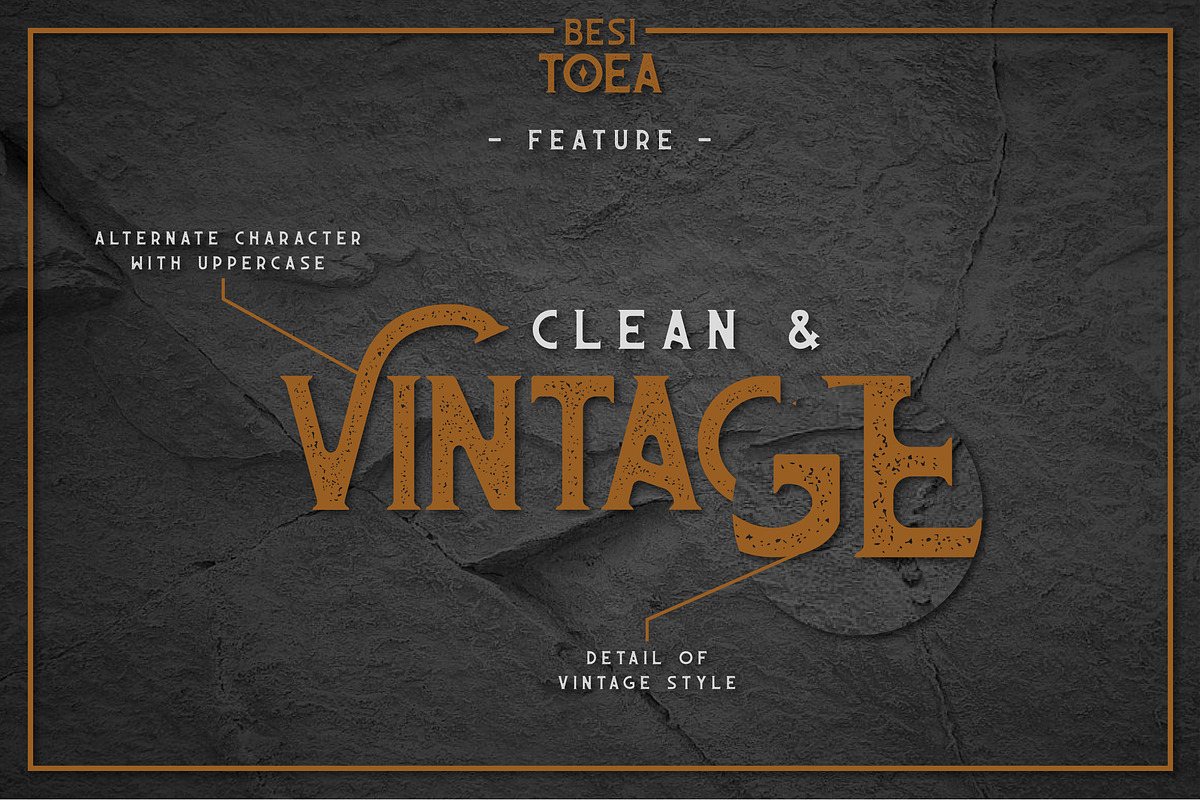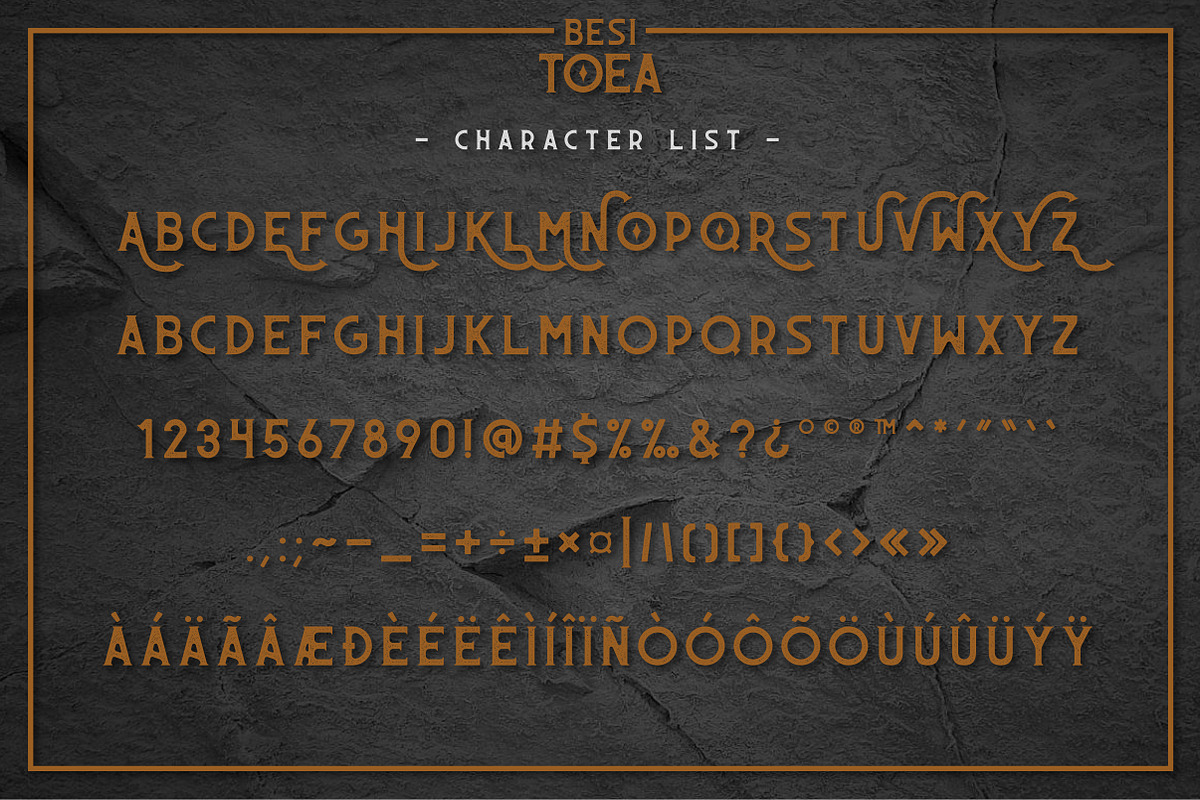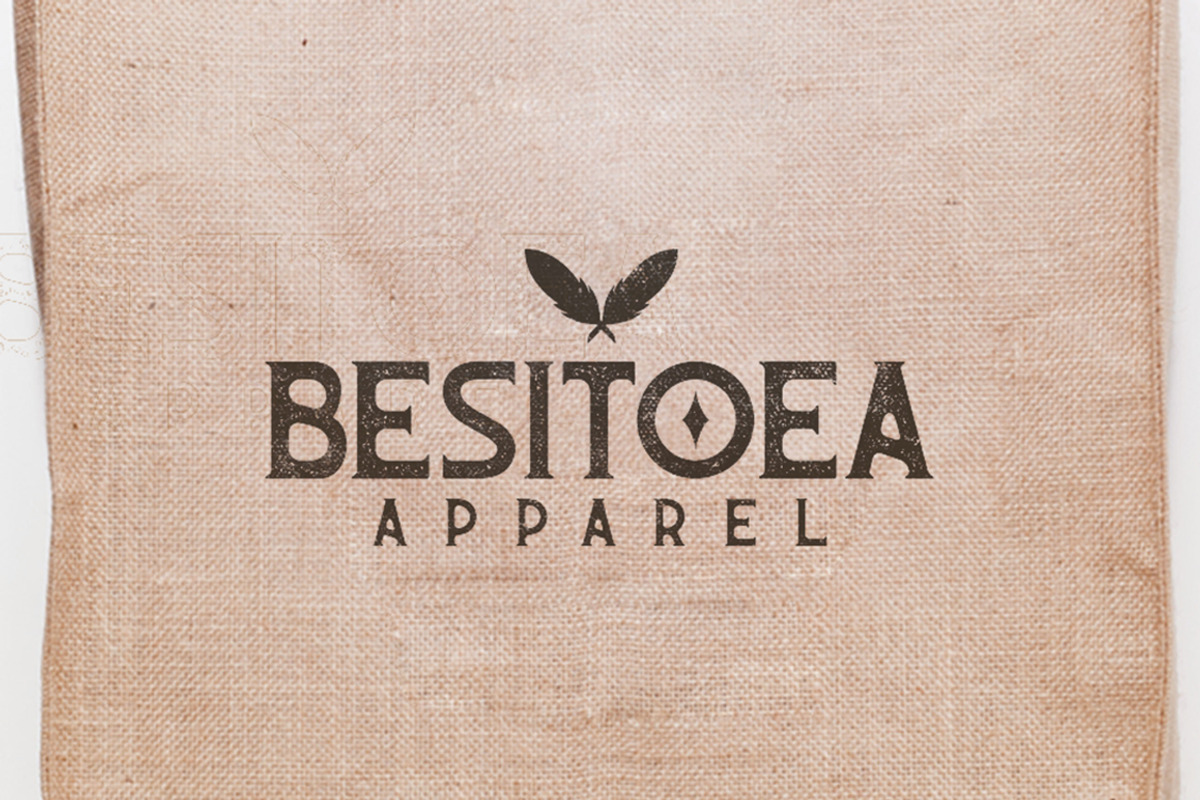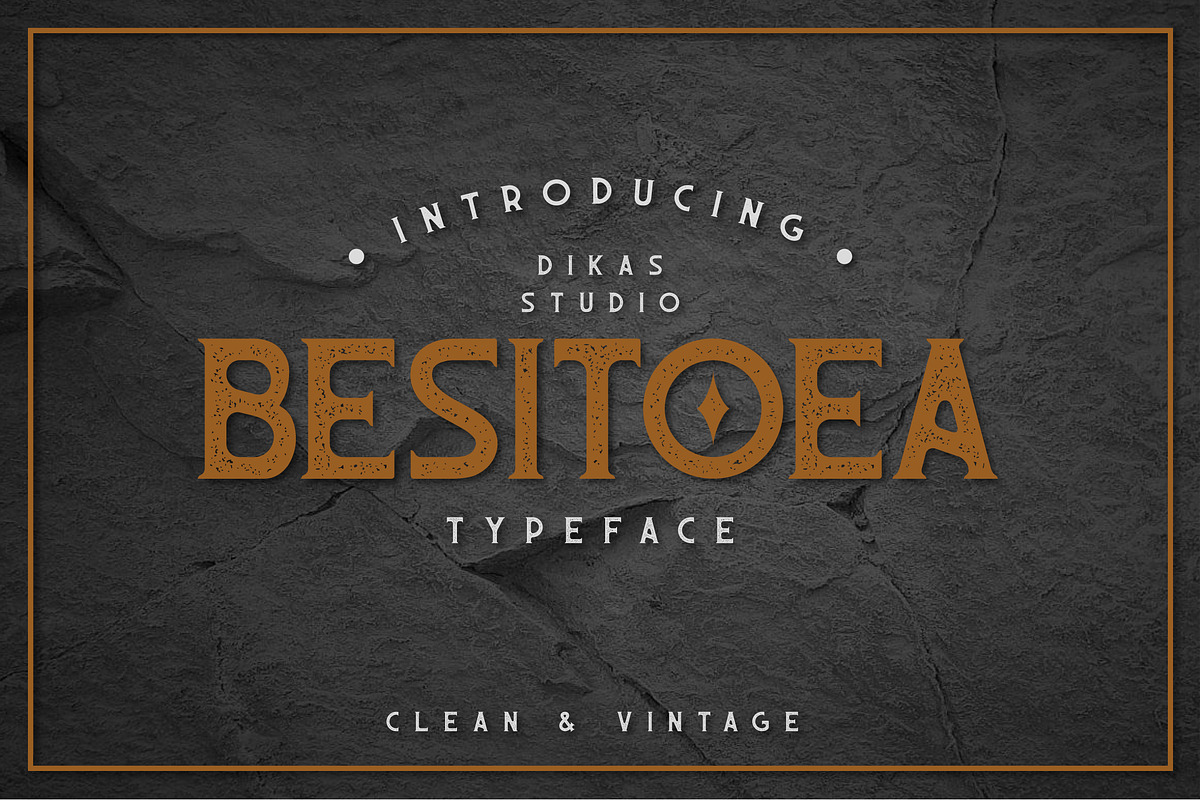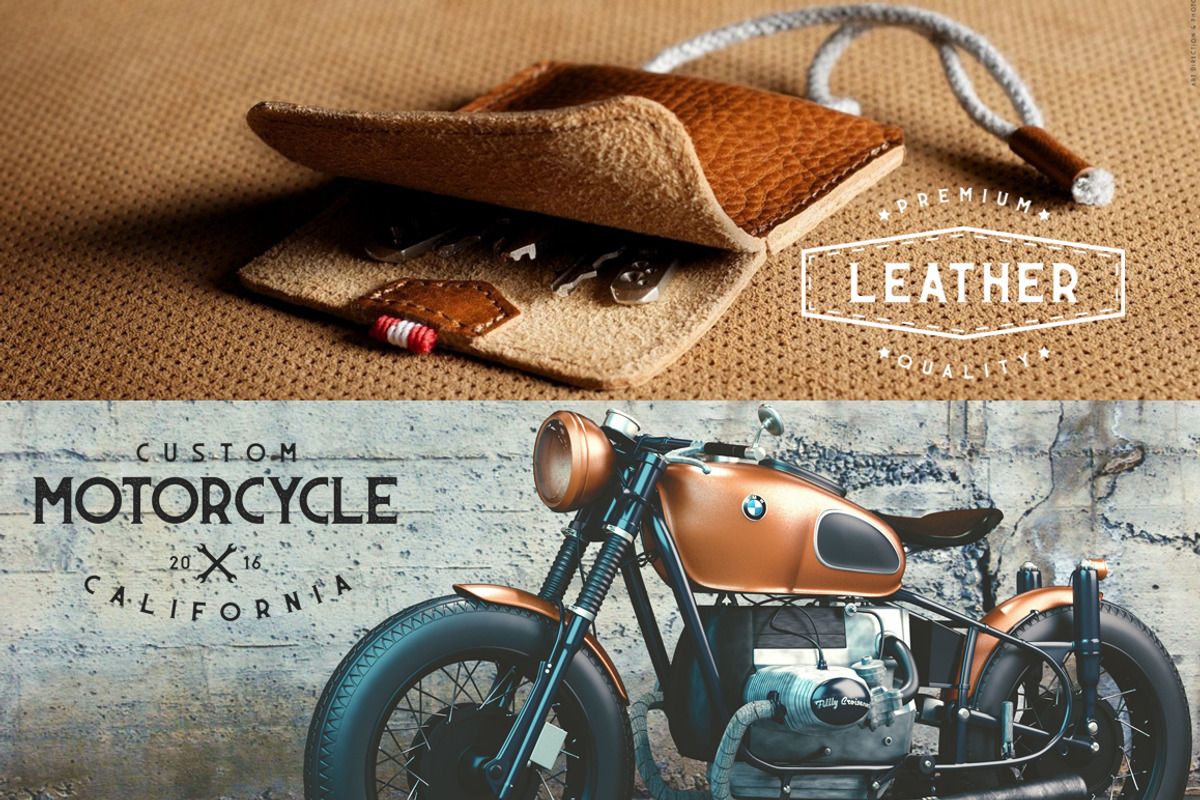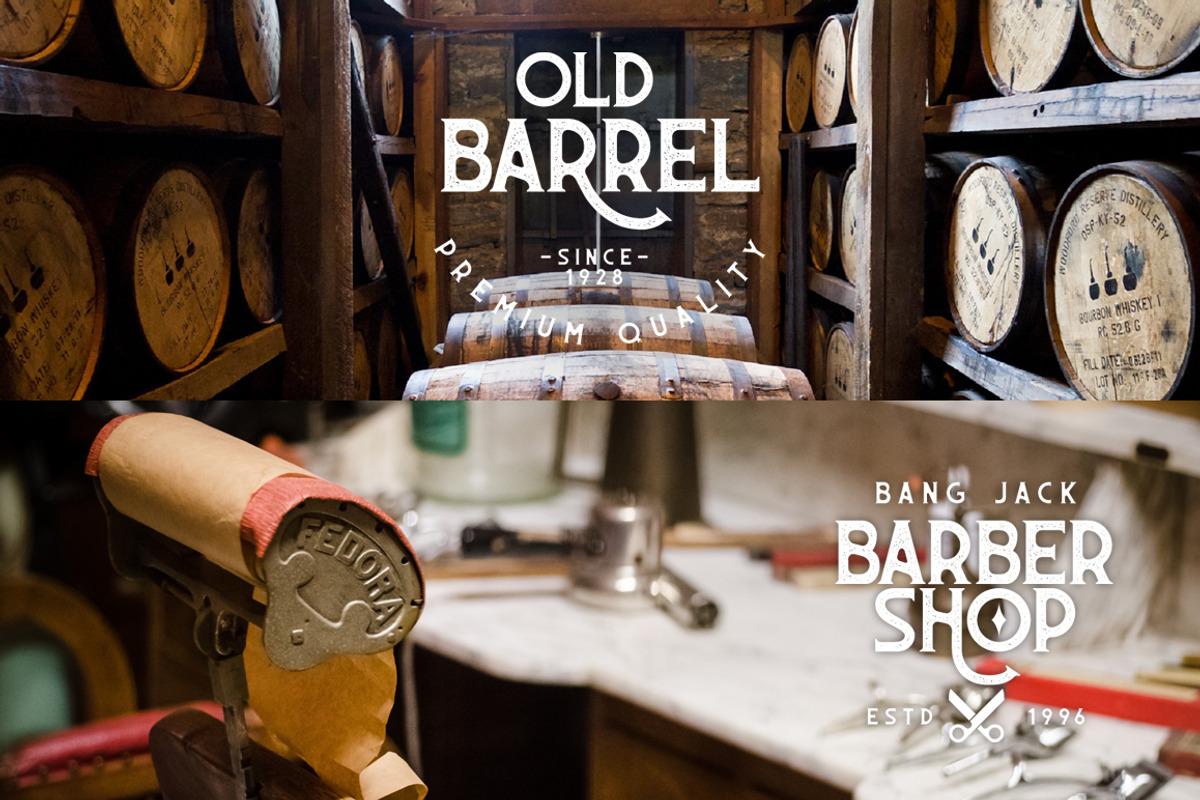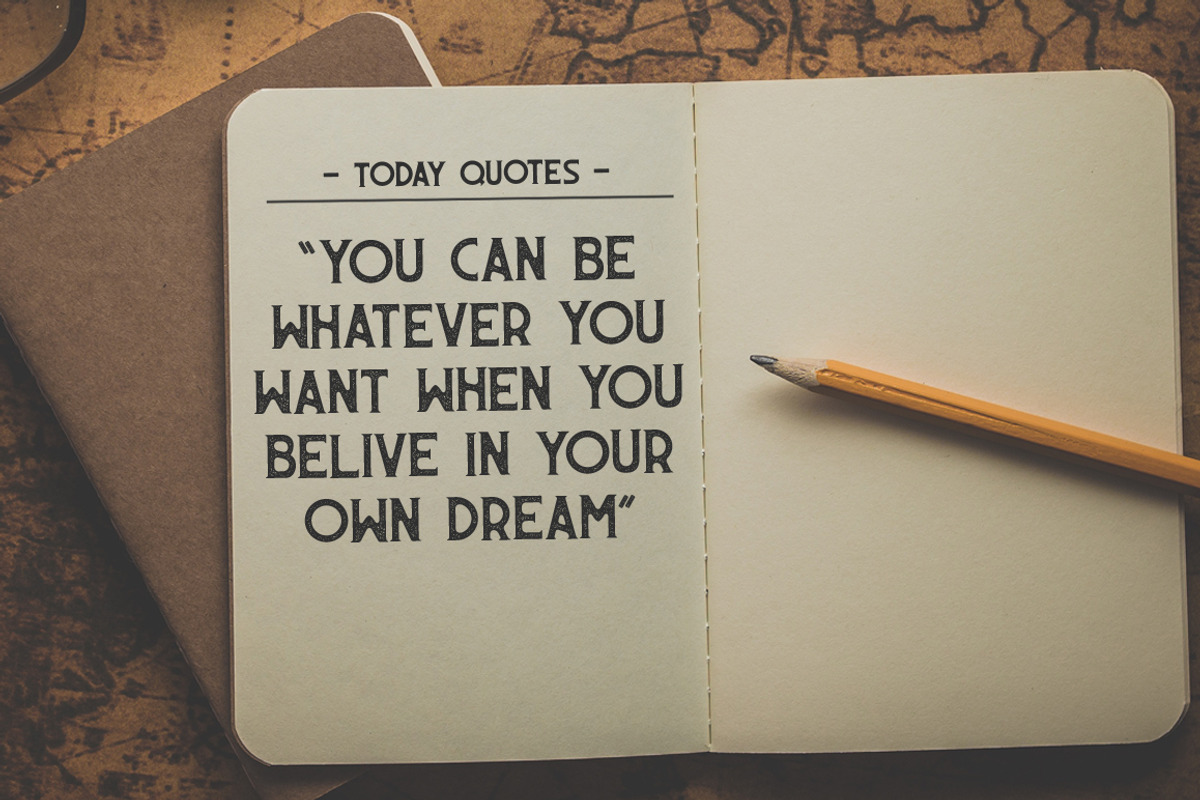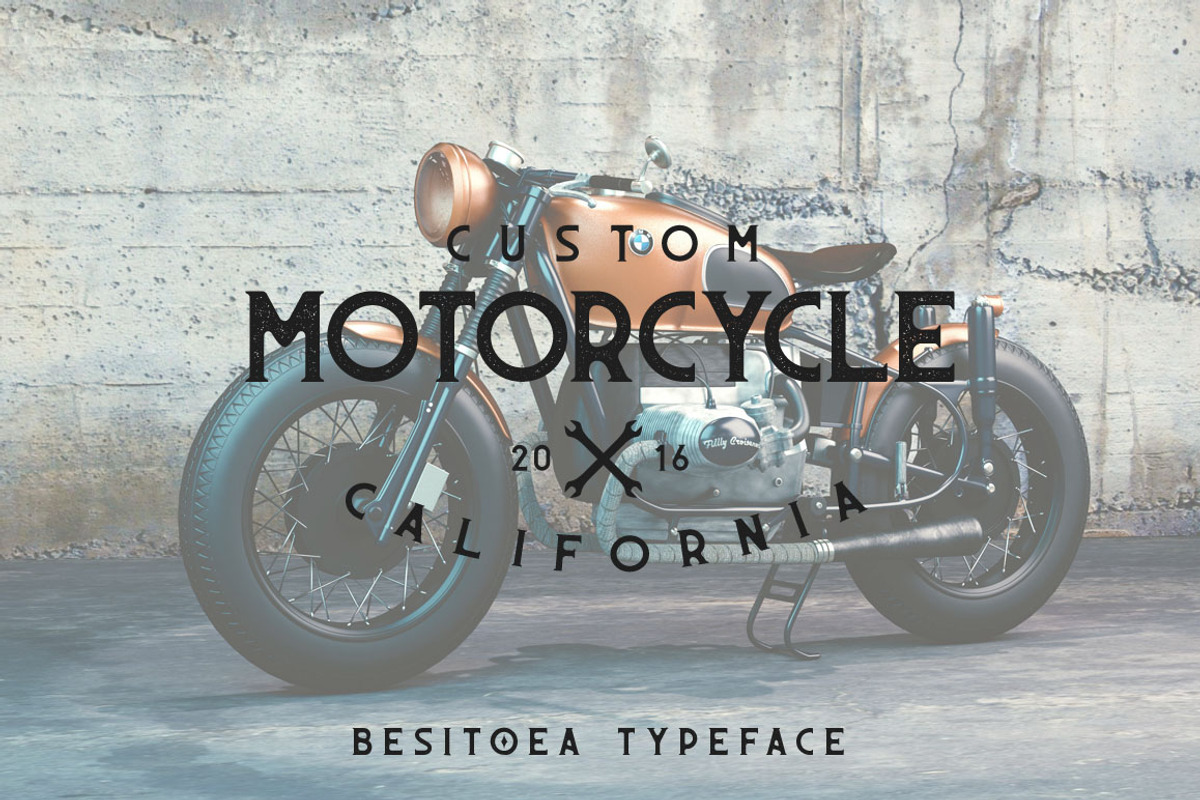
Besitoea Typeface
Besitoea Typeface by Dikas Studio is a font selected for branding, posters, packaging, typography.
- 2 Style character, clean and vintage Whats Included ?
- Feature Besitoea come with numerals, punctition, international language and standart character ( All Caps ) with 16 Alternates that give you
Why Besitoea Typeface is worth a look
Besitoea Typeface by Dikas Studio fits naturally into Branding, posters, packaging, typography.